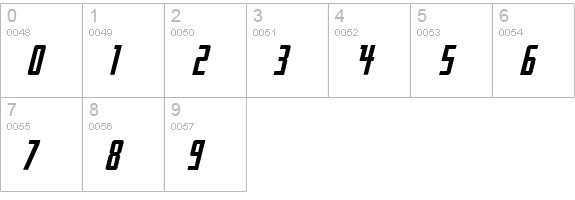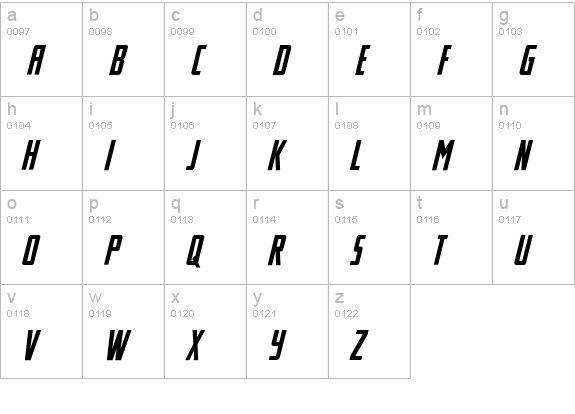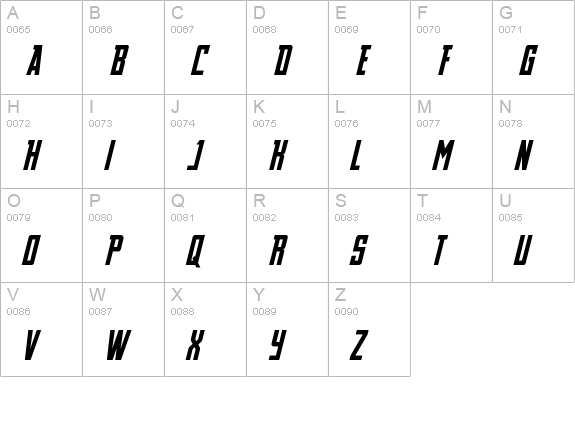
CCStandBy4Action Font Details
Introducing CCStandBy4Action font, a versatile and modern typeface designed to make a bold statement in any design project. This unique font exudes confidence and creativity, perfect for logos, branding, posters, and more. With its sleek and stylish appearance, CCStandBy4Action font is sure to captivate your audience and leave a lasting impression. The best part? This incredible font is available for free download at FontsMarket.com. Take your designs to the next level with CCStandBy4Action font and unleash your creativity with this eye-catching typeface. Get your hands on this must-have font today and elevate your design projects with its contemporary charm and sophistication.